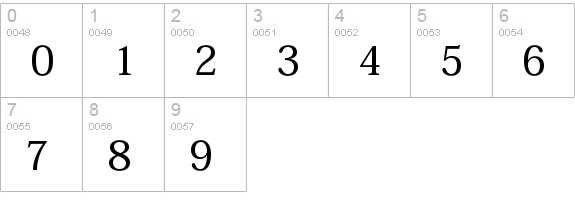
Ryo Text PlusN M is a beautifully crafted font that exudes elegance and sophistication. Its unique design features a perfect balance of modernity and classic charm, making it suitable for a wide range of design projects. The clean lines and sharp edges of this font give it a sleek and professional look, ideal for both digital and print applications. What sets Ryo Text PlusN M apart is that it is available for free download at FontsMarket.com. This means you can access this stunning font without any cost, making it a valuable addition to your font collection. Whether you are working on branding, editorial design, or any other creative project, Ryo Text PlusN M is sure to elevate your work with its timeless appeal. Don't miss out on the opportunity to enhance your designs with this exceptional font - download Ryo Text PlusN M for free today at FontsMarket.com and unleash your creativity!